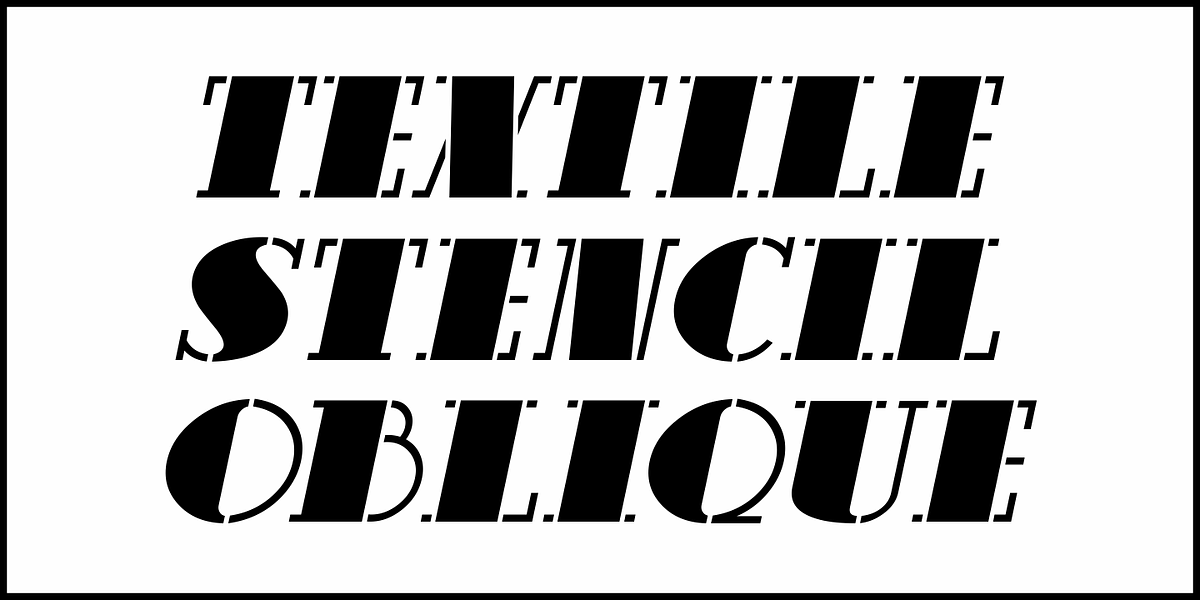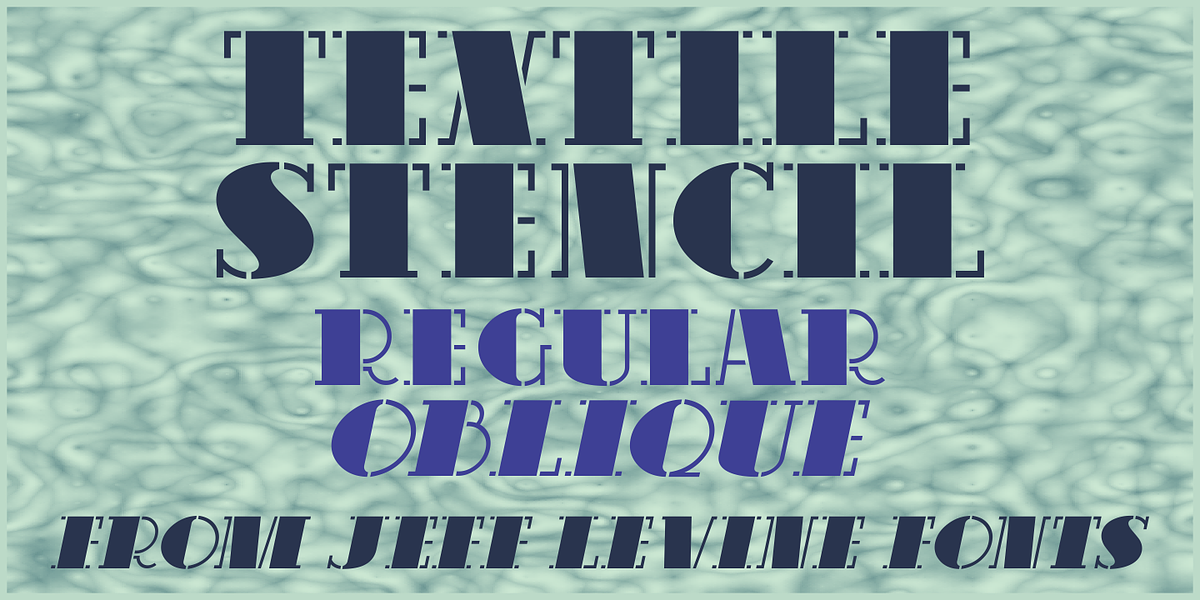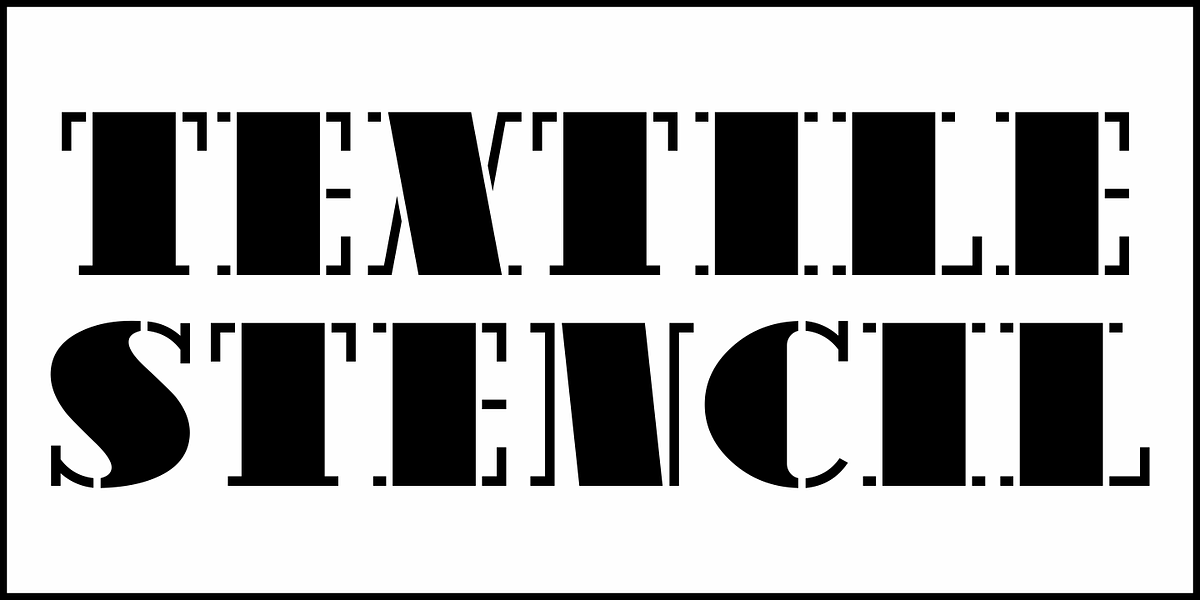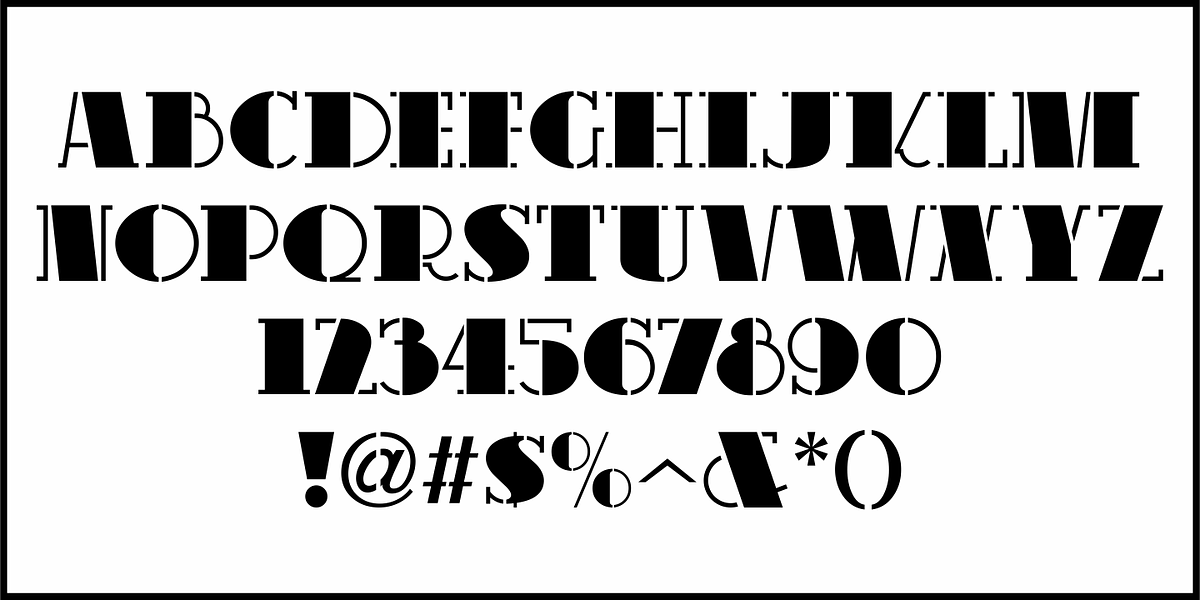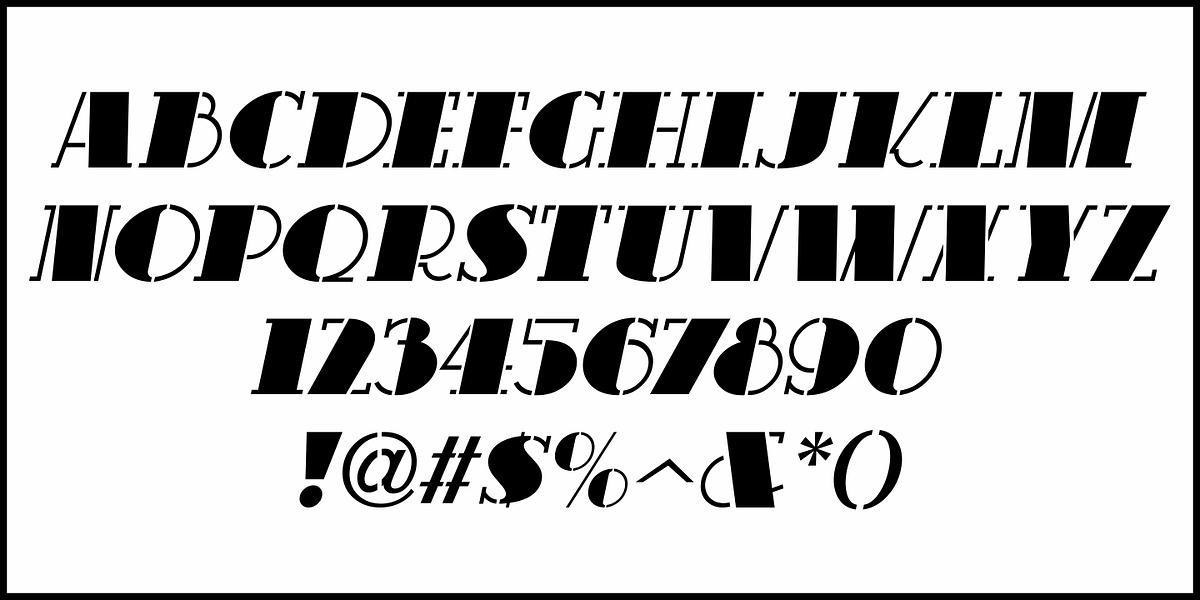
Textile Stencil JNL
An ad from the 1930s for a Spanish company called Intex Textiles featured some hand lettering in a bold and unique stencil design.
This is now available as Textile Stencil JNL, in both regular and oblique versions.